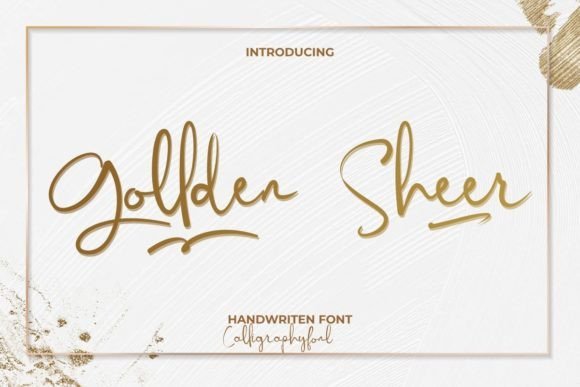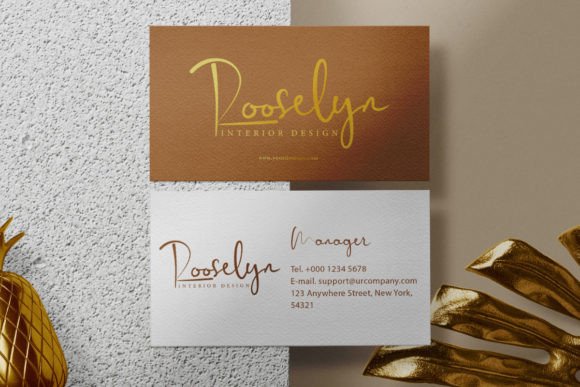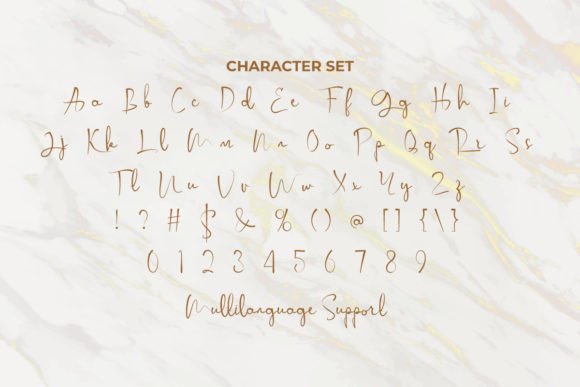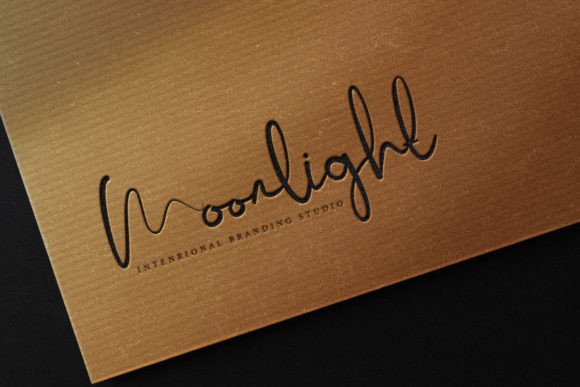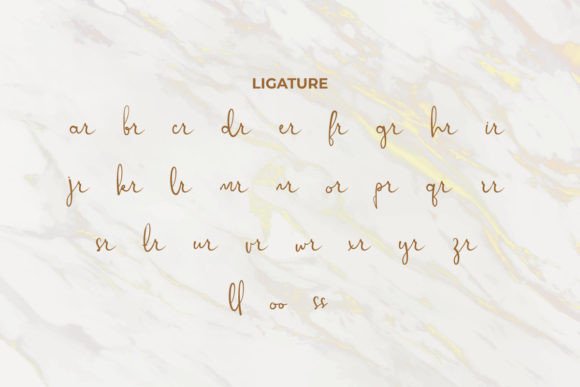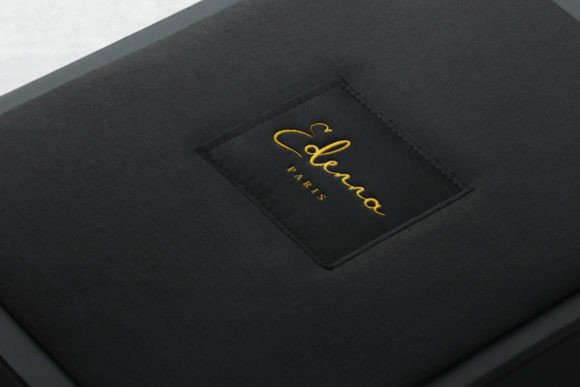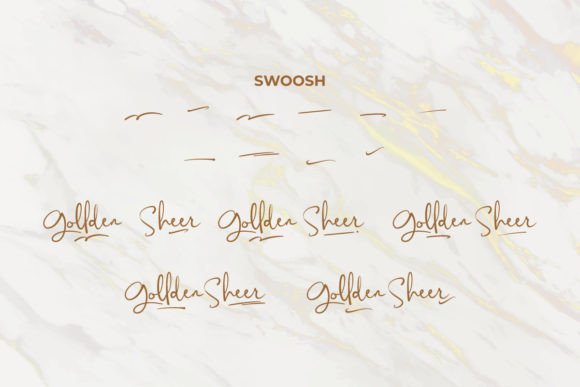
Have you ever stared at a blank page, trying to decide on the perfect font to bring your design to life? It’s that moment when you wish you had a trusty font that could elevate your work and make it stand out from the crowd. Well, we’ve got you covered. Introducing Gollden Sheer Font, a stunning handwritten font that exudes elegance and sophistication.
This versatile font is perfect for a wide range of creative projects, from advertisements and branding to brochures and business cards. Its minimalist design makes it an ideal choice for fashion brands, headers, invitations, and magazines. With Gollden Sheer Font, you can add a touch of whimsy and personality to your work, making it truly unforgettable.
Gollden Sheer Font Key Features
- Unique Characteristics: The Gollden Sheer Font features a unique, elegant script with a subtle flair, making it ideal for creative and artistic applications.
Gollden Sheer Font Review
I recently had the chance to work with the Gollden Sheer Font, and I must say it’s a mixed bag. On the one hand, there are some things that really shine ✨.
- Uniqueness: The Gollden Sheer Font has a distinct, elegant feel to it that sets it apart from more common fonts. It’s a great choice for designers looking to add some personality to their projects.
- Legibility: At larger font sizes, the Gollden Sheer Font is surprisingly clear and easy to read. This makes it a great choice for body text or headings in print materials.
However, there are also some limitations to consider ⚠️.
- Customizability: The Gollden Sheer Font feels a bit rigid in terms of its design. While it’s great for its intended purpose, it’s not particularly versatile, which may limit its use in certain projects.
- Size limitations: At smaller font sizes, the Gollden Sheer Font can start to look a bit fuzzy. This may be a problem for designers working on digital projects or materials that require very small text.
Overall, I’d say the Gollden Sheer Font is a solid choice for designers who want to add some elegance to their projects. While it has its limitations, it’s a great option for those who can work within its constraints.
Tips for Getting the Most Out of Gollden Sheer Font
Use Gollden Sheer Font for titles and headings to add a touch of elegance and sophistication.
Pair Gollden Sheer Font with other fonts to create a unique and eye-catching design.
Experiment with different font sizes and styles to create a visually appealing effect.
Gollden Sheer Font is ideal